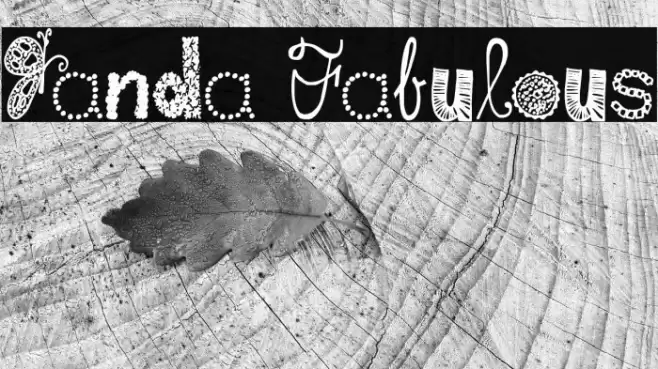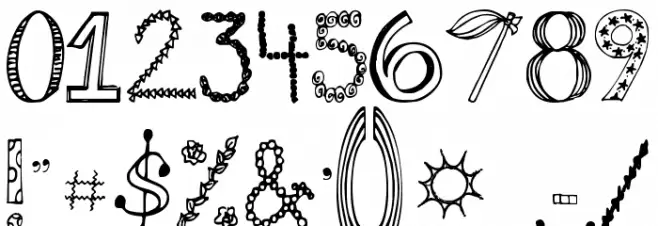
Janda Fabulous Font
Janda Fabulous Description
This font is a playful and eclectic collection of characters, each with its own unique decorative style. The uppercase letters feature a variety of patterns, including stripes, dots, and floral motifs, giving each letter a distinct personality. The lowercase letters continue this theme with whimsical embellishments and creative flourishes. Numbers are equally diverse, with some incorporating stars, stripes, and other playful elements. The special characters are adorned with intricate designs, adding to the overall charm. This font is perfect for projects that require a fun and artistic touch, offering a wide range of visual interest.
A playful, decorative font with unique patterns and whimsical embellishments from Decorative fonts.